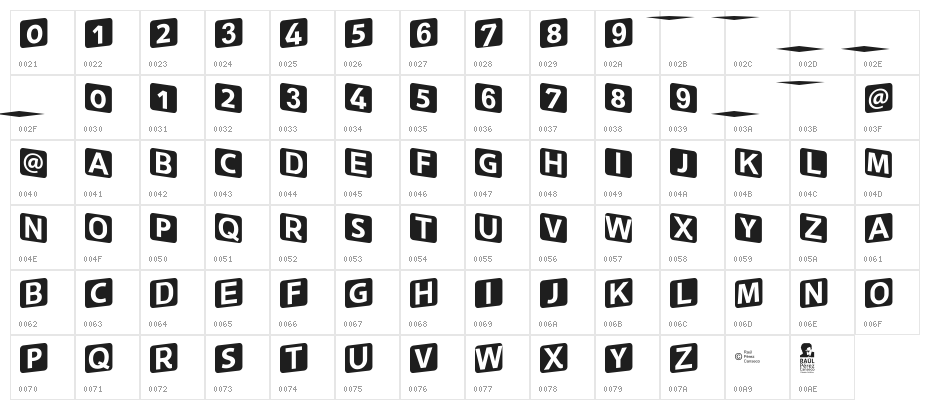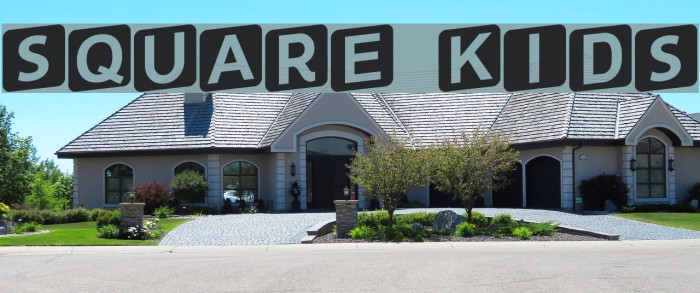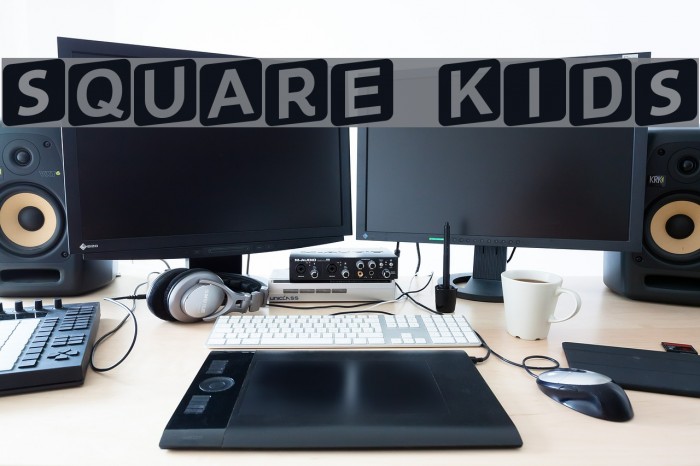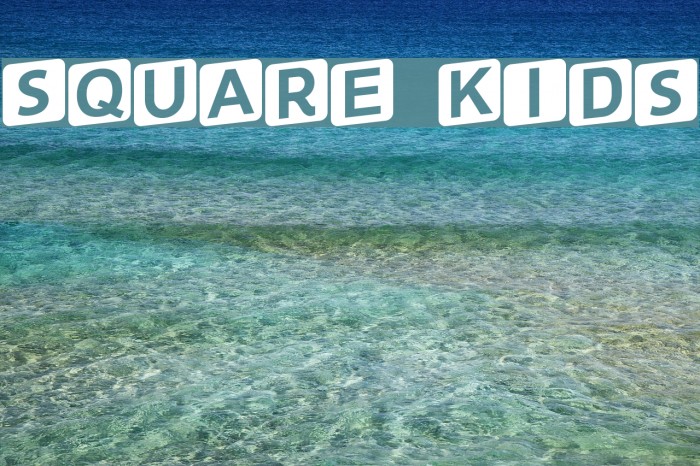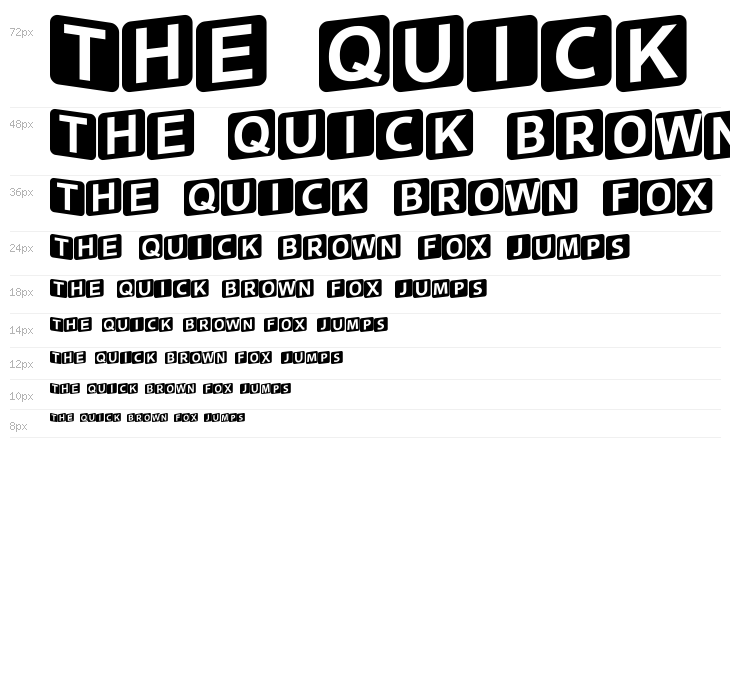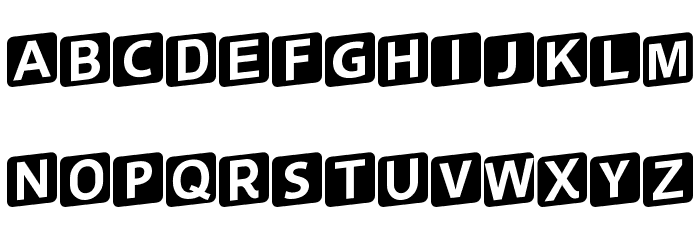
square kids Font
This playful and bold font features characters enclosed within square blocks, giving it a distinctive and eye-catching appearance. The letters and numbers are set against a solid black background, creating a strong contrast that enhances readability. The font's geometric style is consistent across both uppercase and lowercase letters, as well as numbers, making it versatile for various design needs. Its unique blocky design is reminiscent of children's building blocks, adding a sense of fun and creativity. The font's uniformity and boldness make it suitable for projects that require a strong visual impact.
A bold, blocky font with characters enclosed in square shapes, ideal for playful designs.
• Proposed Projects: Perfect for children's books, educational materials, playful branding, and toy packaging.
• Category: Decorative/Display
• Bold: Yes
• Italic: No
• Weight: Bold
• Width: Normal
• Character Spacing: Normal
• Contrast: High
• Overall Style: Playful, Modern
• Use Case: Headlines, Logos, Posters